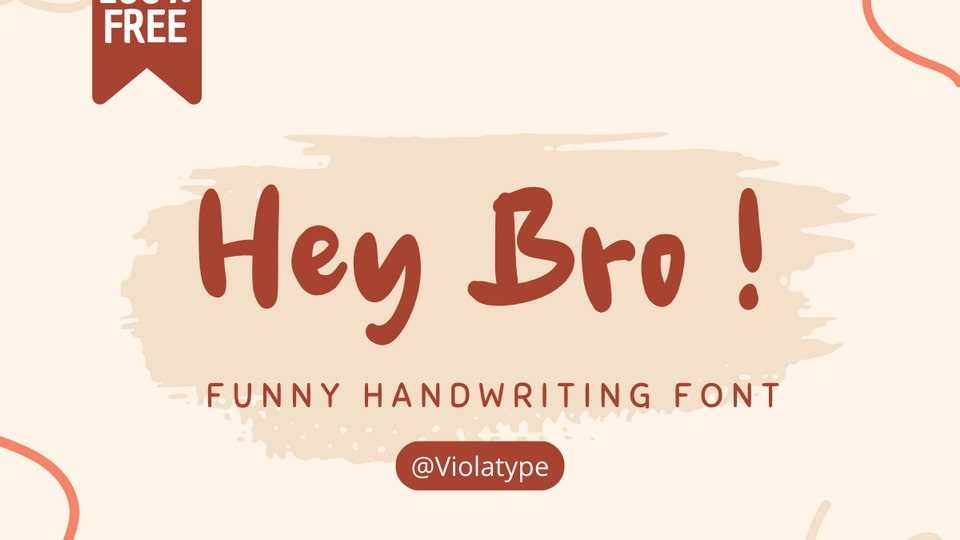
Download Hey Bro! font, a funny and natural hand-drawn font with a playful, childish look, bringing a sense of joy and spontaneity to any design.
Designer: Viola Type